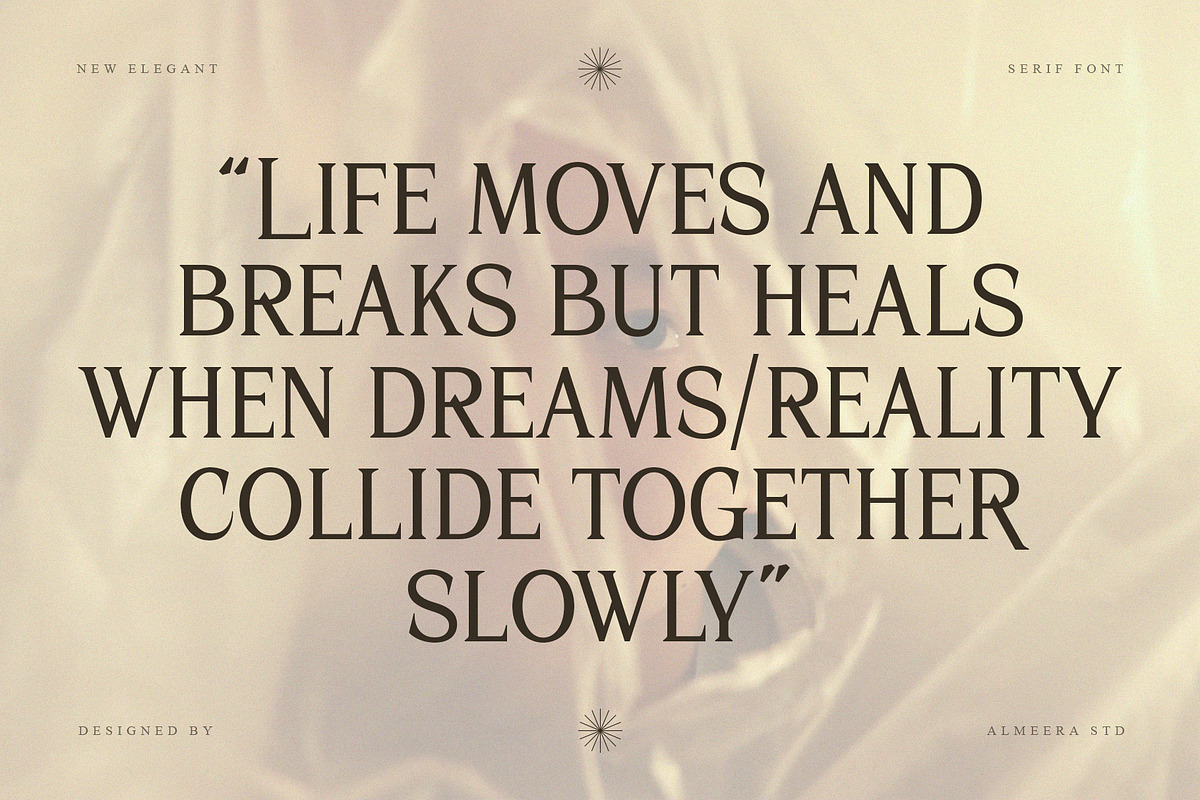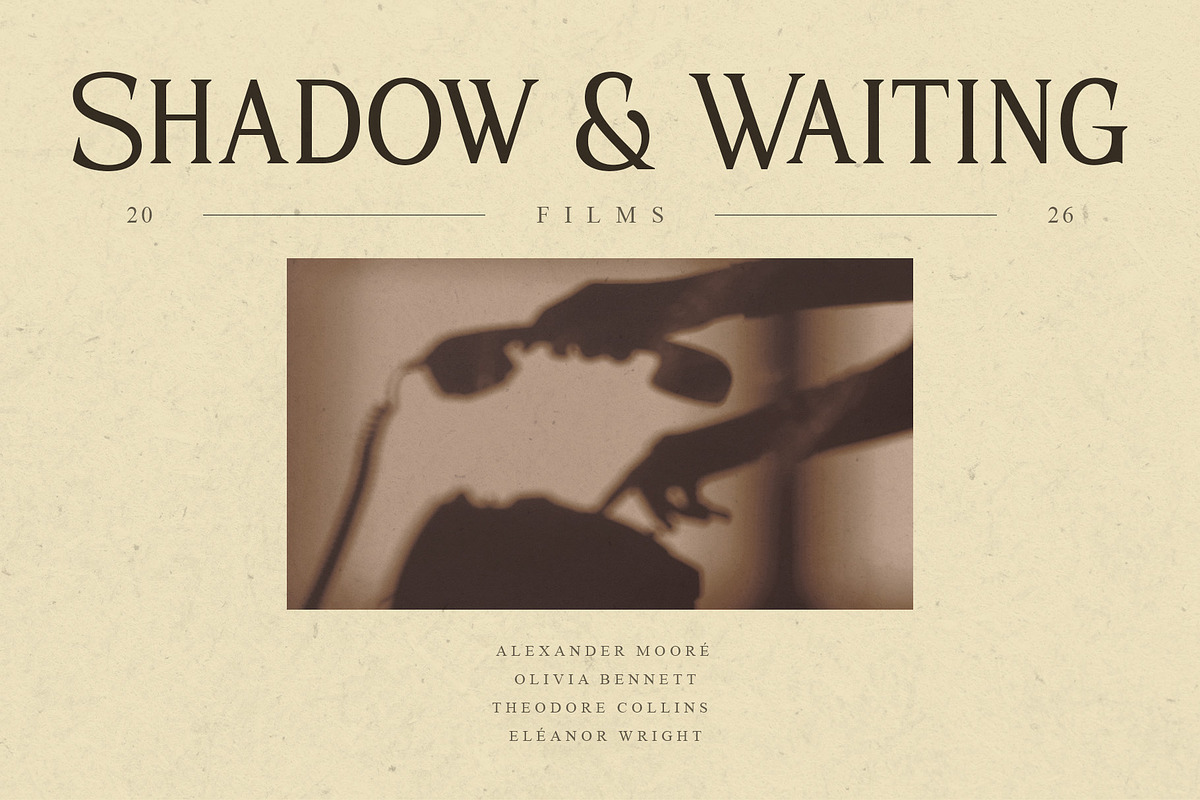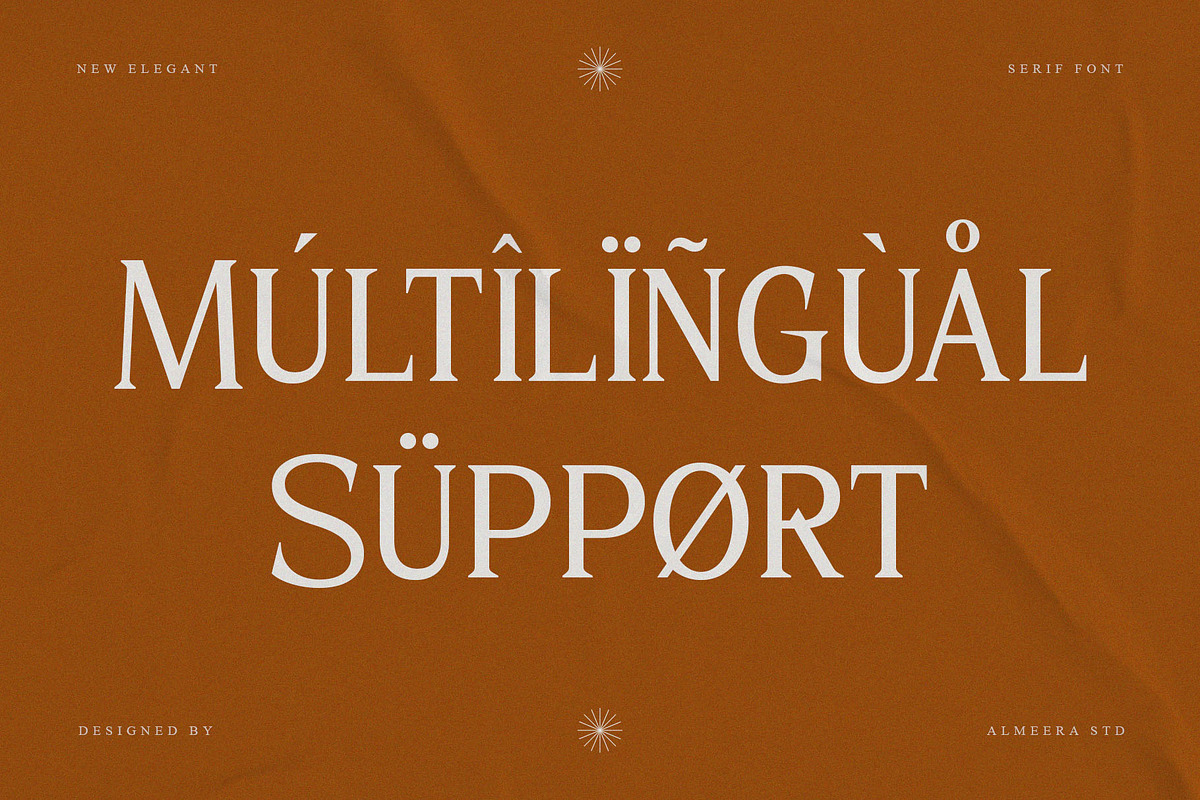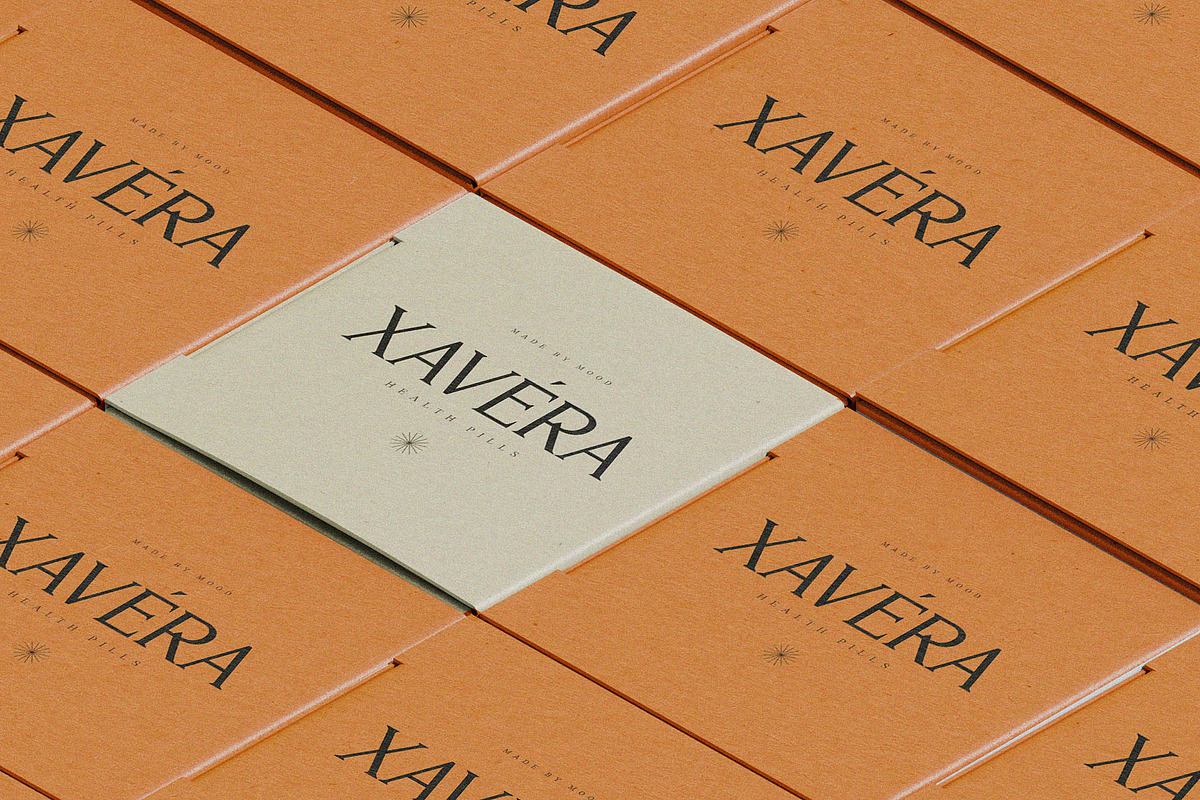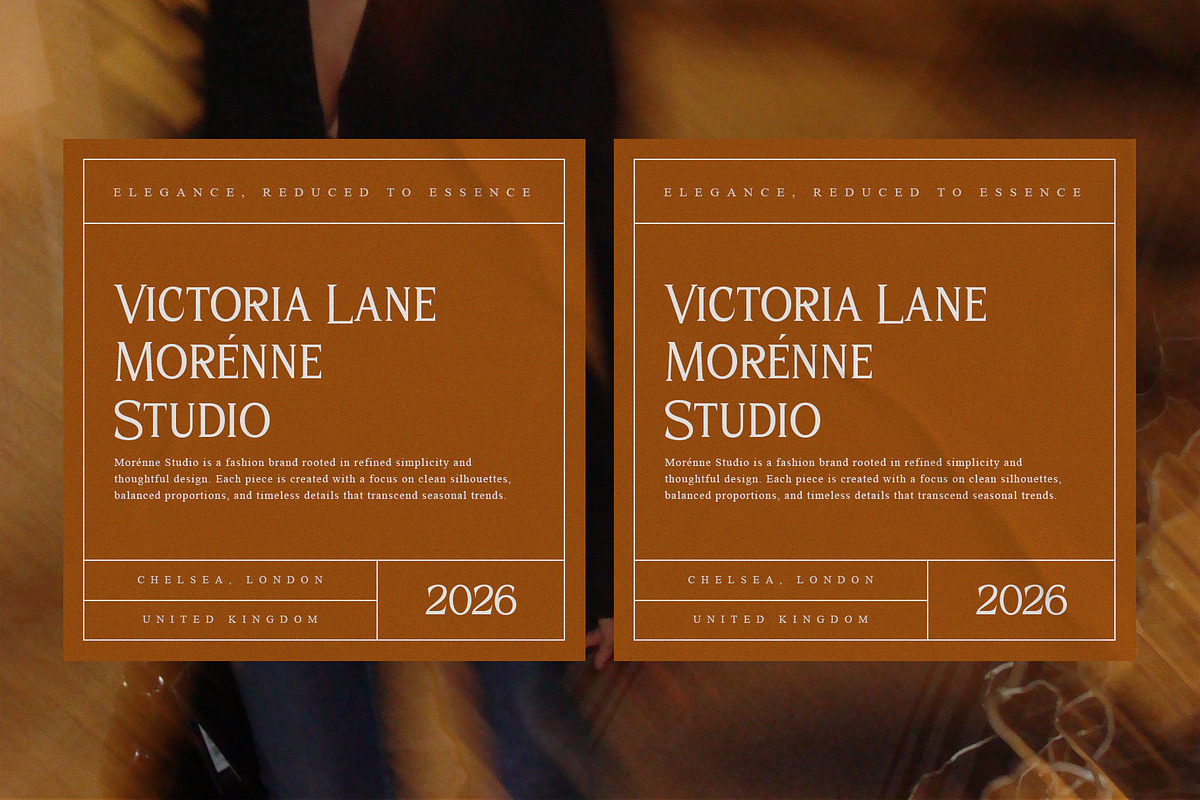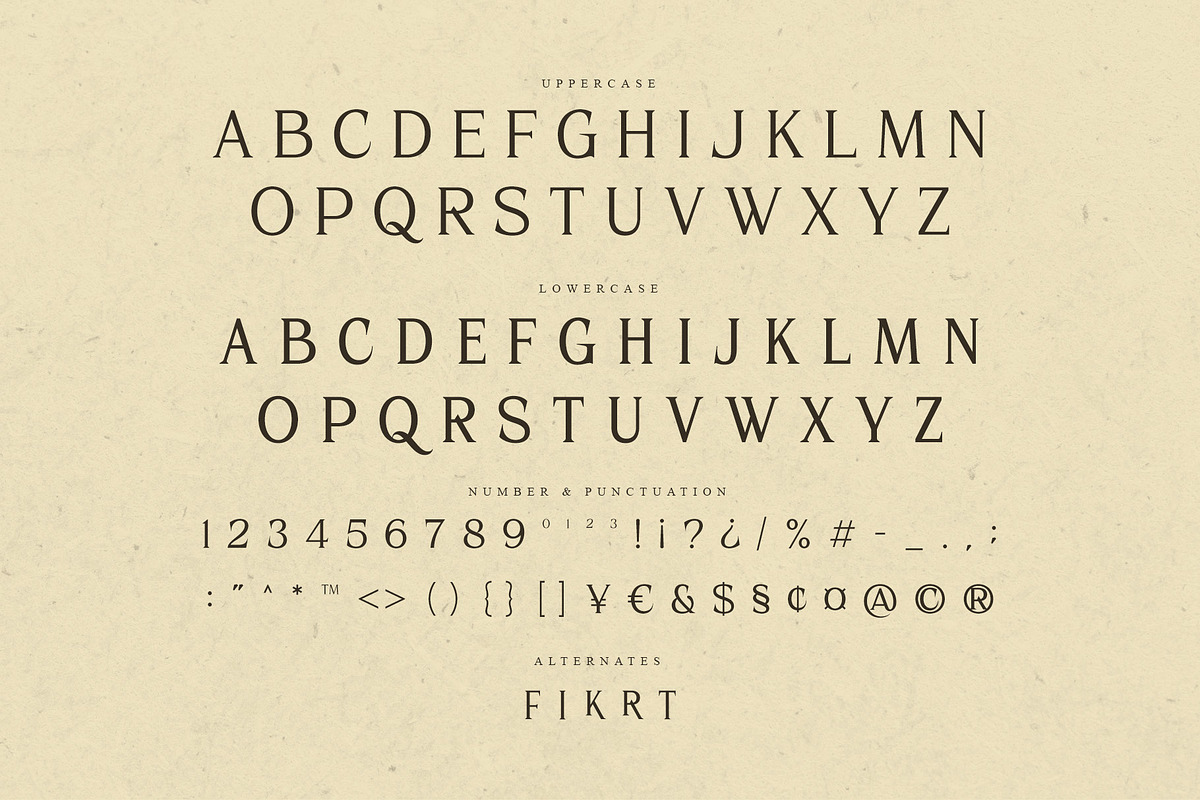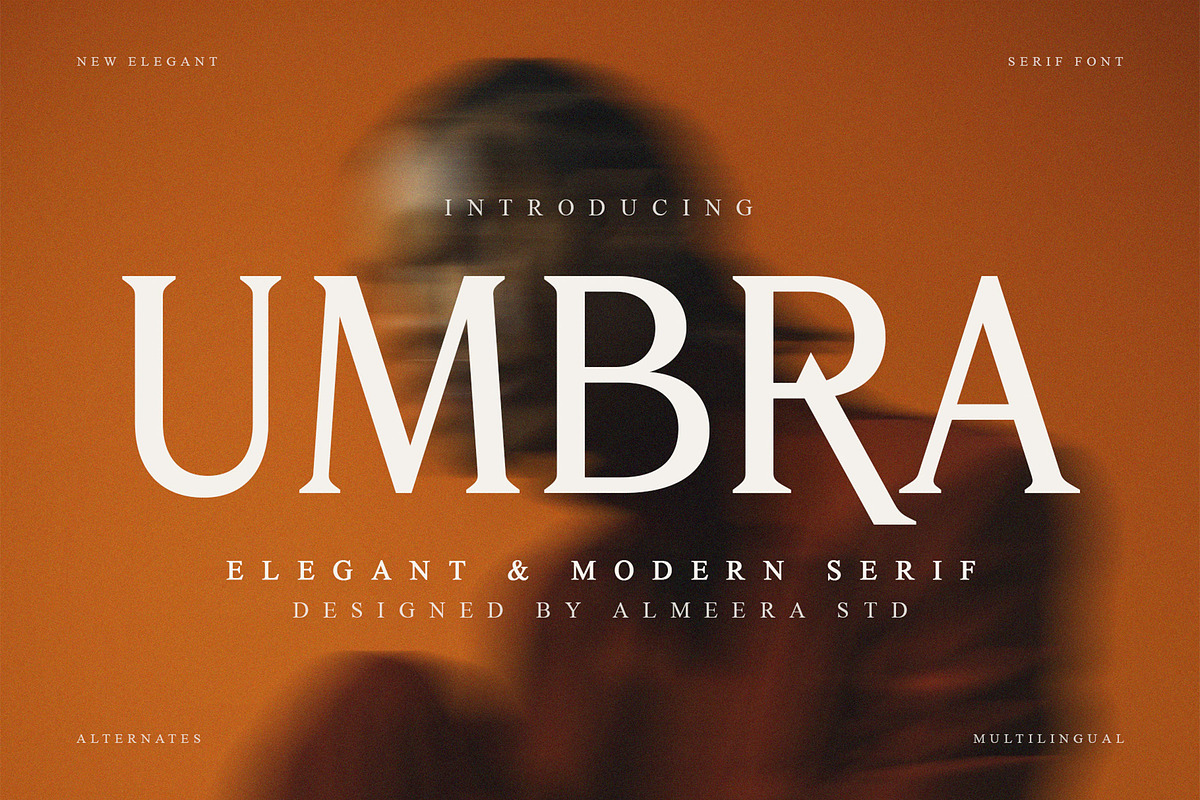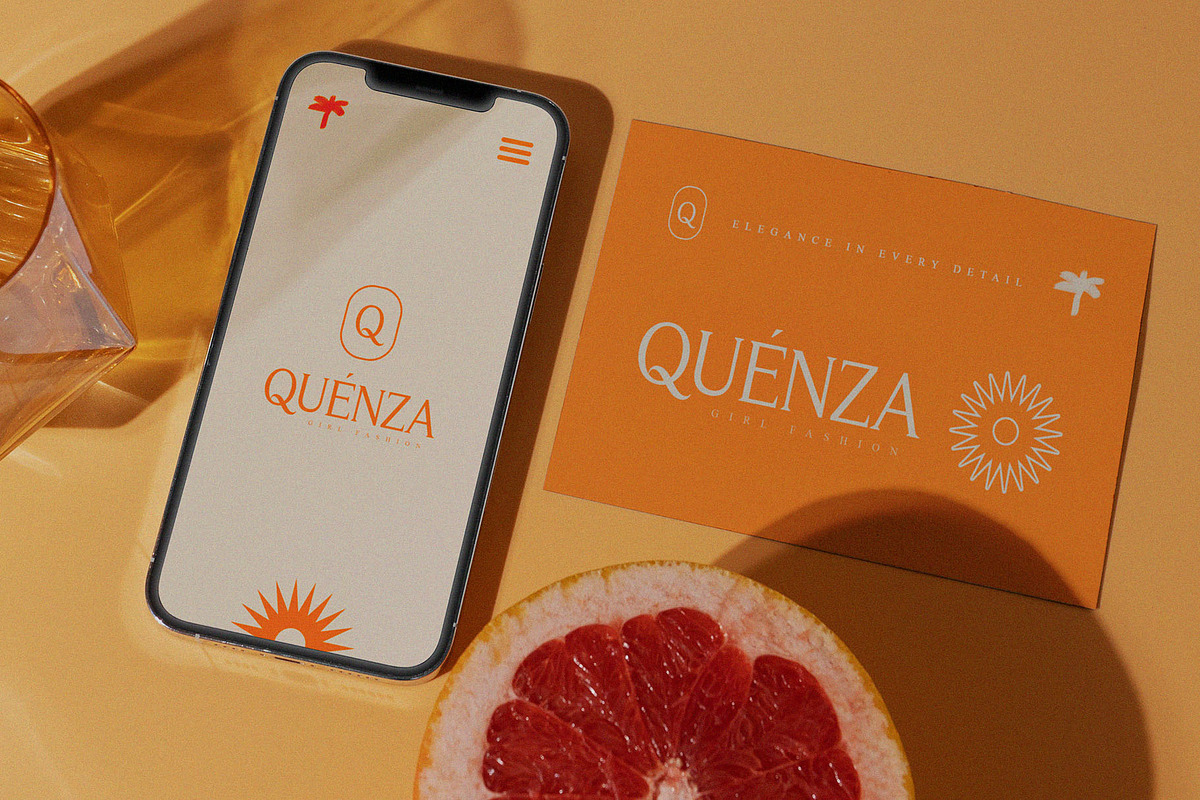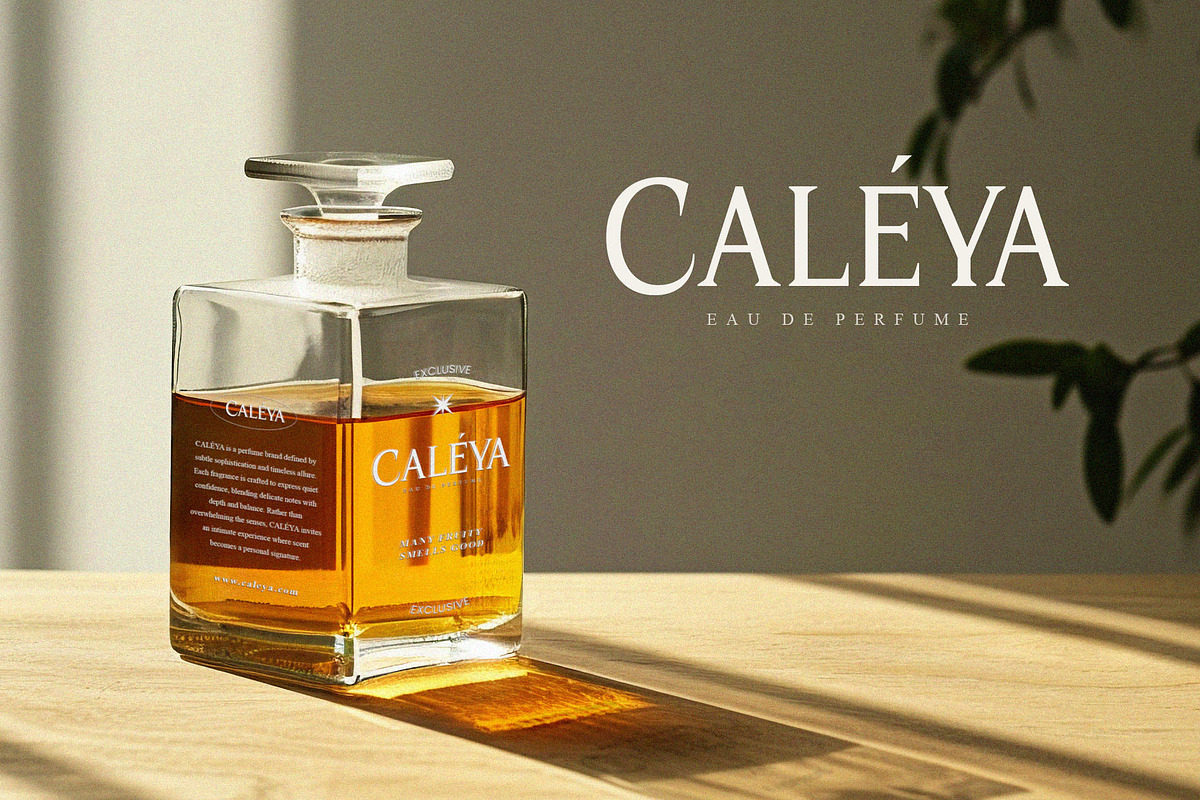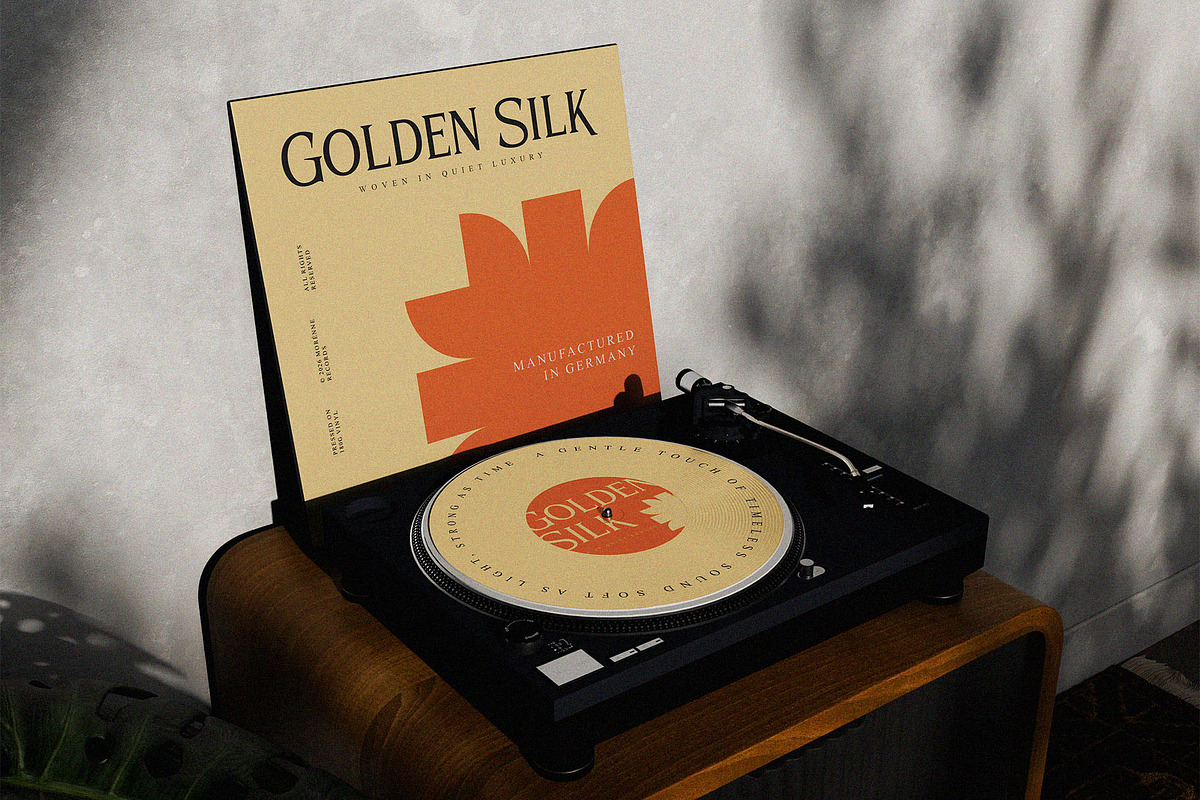
Umbra – Modern Serif Font
Umbra is an elegant modern serif font that combines classic serif foundations with contemporary refinement. Its graceful contrast, balanced proportions, and confident structure create a sophisticated typographic voice suitable for high-end and editorial-focused designs.
Designed to convey elegance and authority, Umbra excels in modern editorials, premium branding systems, refined headlines, and visual storytelling. The font offers excellent readability while maintaining a distinctive serif character, supported by multilingual coverage and polished spacing.
- Numbers, fractions
- Punctuation and symbols